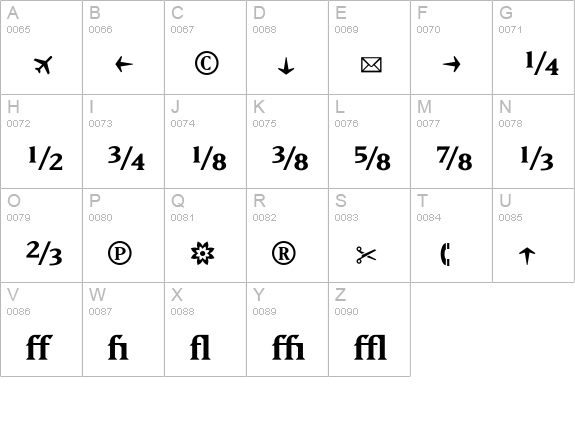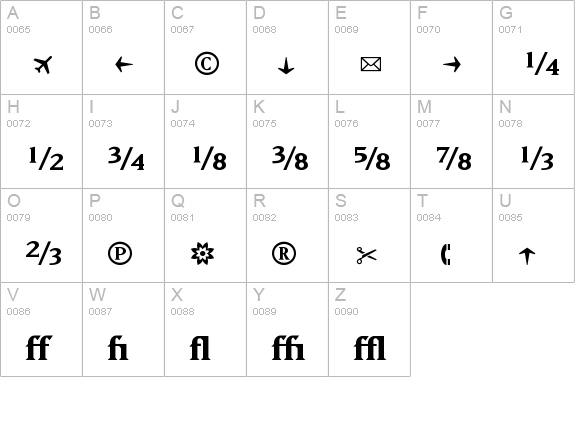
MatrixFractions-Bold is a strong, high-contrast variant in the MatrixFractions typeface family \xE2\x80\x94 well suited to headlines, attention-grabbing titles, and strong calls-to-action.
MatrixFractions-Bold font is a sleek and modern typeface perfect for making a bold statement in your designs. With its clean lines and sharp edges, this font exudes confidence and sophistication. Whether you're designing a poster, logo, or website, MatrixFractions-Bold will add a touch of elegance to your project. Best of all, MatrixFractions-Bold is available for free download at FontsMarket.com. This means you can elevate your designs without breaking the bank. Don't miss out on the opportunity to enhance your typography game with this stunning font. Download MatrixFractions-Bold today and see the difference it can make in your projects.